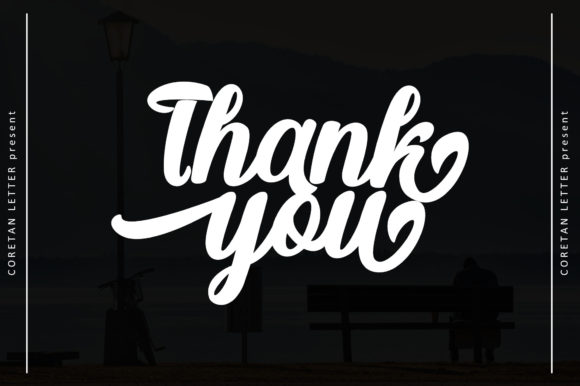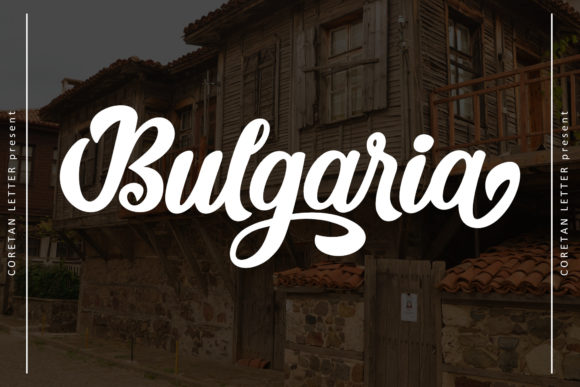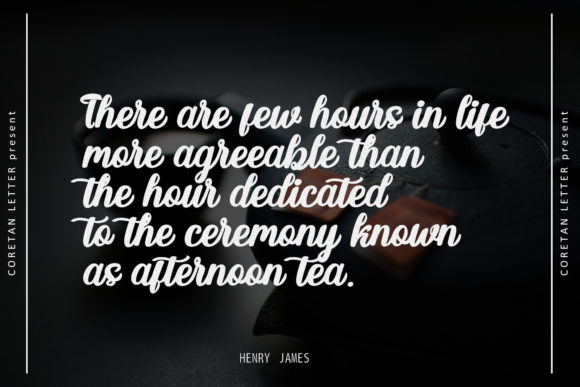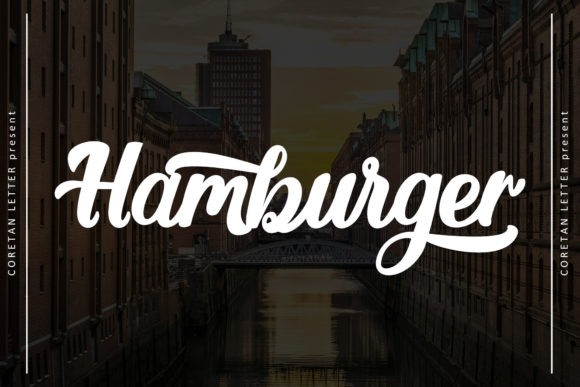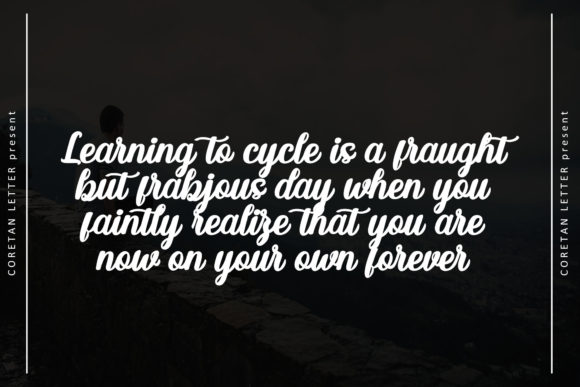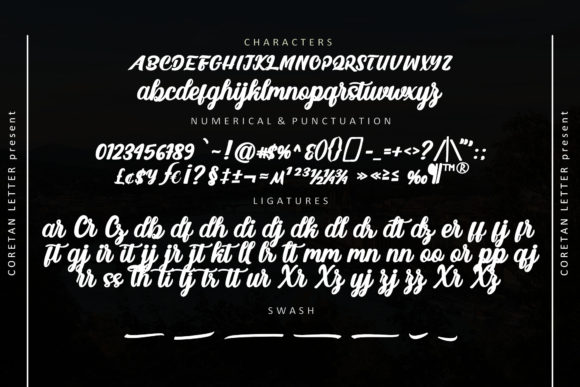
Introduction to Morgantara Font
As designers, we’ve all had those ‘aha’ moments when we stumble upon a game-changing design resource. For me, that moment came when I discovered the Morgantara Font. Its beautiful, bold, and cursive script instantly captured my attention, and I knew I had to share it with fellow creatives. Imagine being able to add a touch of elegance to your next project with just a few clicks – that’s what Morgantara Font offers.
With its PUA encoding, accessing all the glyphs and swashes is a breeze, allowing you to unleash your creativity and bring your designs to life. Whether you’re working on a free download or a high-end commercial project, Morgantara Font is an invaluable asset to have in your design toolkit. Its versatility makes it perfect for a wide range of creative projects, from logos to wedding invitations, and even digital art with transparent backgrounds.
Key Features of Morgantara Font
- Features a unique, elegant design with a transparent background, allowing for easy customization
- Designed to be versatile, suitable for a wide range of creative projects, from logos to typography
Honest Review: Morgantara Font
- High-quality design with intricate details
- Perfect for creating visually appealing headings and titles
- Available in various font styles, including bold and italic
- Supports a wide range of languages, making it a great choice for multilingual projects
- ⚠️ Limited availability of font sizes, which can make it difficult to use in certain design scenarios
- ⚠️ Some users have reported issues with the font’s transparency, particularly when using a transparent background
Overall, I’m impressed with the Morgantara Font’s versatility and aesthetic appeal. While it may have some limitations, its high-quality design and free download make it a valuable resource for any designer working on a creative project.
Tips for Getting the Most Out of Morgantara Font
For the best results, use the Morgantara Font on a transparent background to ensure it stands out against any background image or color. You can also experiment with different font sizes and colors to create a unique and eye-catching design.
Common Use Cases for Morgantara Font
The Morgantara Font is suitable for a variety of creative projects, including logos, brochures, business cards, and social media graphics. Its high-quality design makes it an excellent choice for any design project where a professional and elegant look is desired.
Alternatives to Morgantara Font
The Great Vibes Font is a beautiful, elegant script font perfect for creative projects that require a touch of sophistication. It’s ideal for use in wedding invitations, art prints, and other design elements that need a high-quality, handwritten feel. When to use: For projects that require a romantic or vintage touch. Compared to Morgantara Font, Great Vibes Font has a more refined and delicate appearance, making it suitable for projects where a softer look is desired.
Carolyna Pro is a modern, sans-serif font designed for use in digital and print projects. It features a clean and minimalist design, making it perfect for websites, apps, and other digital design resources. When to use: For projects that require a clean and modern aesthetic. Compared to Morgantara Font, Carolyna Pro has a more streamlined and contemporary look, making it ideal for projects where a modern feel is desired.
Q: Can I use the Morgantara Font with a transparent background?
Yes, the Morgantara Font is designed to be used with a transparent background. This allows for seamless integration with your design, making it ideal for creative projects that require a high level of customization.